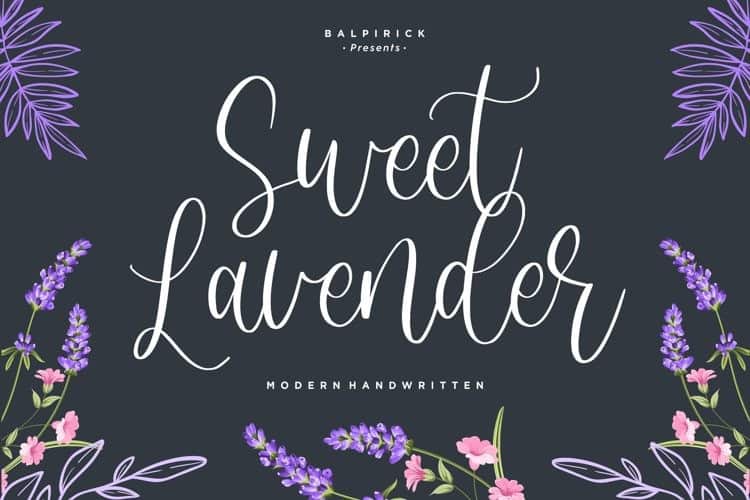
Sweet Lavender Calligraphy Font
Introducing Sweet Lavender Font, is a modern feminine font, every letter has been carefully crafted to make your text look beautiful. With a modern handwritten script style, this font will be perfect for projects: photography, watermarks, quotes, blog headers, posters, weddings, branding, logos, fashion, clothing, letters, invitations, stationery,
Sweet Lavender Calligraphy An elegant new font! For those of you who need an elegant and modern touch for your design, this font is made for you!